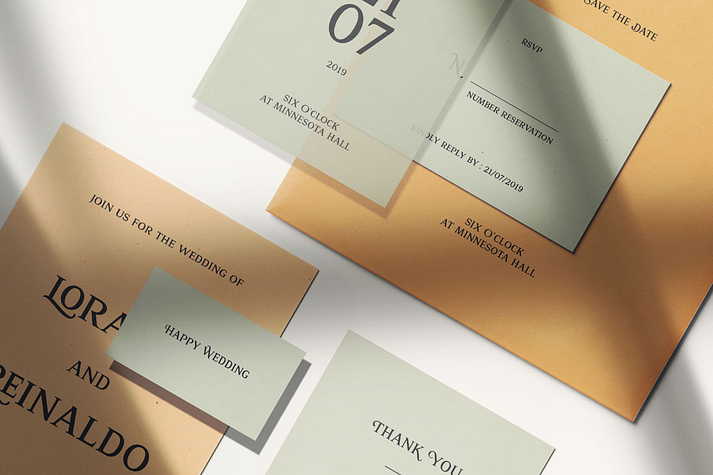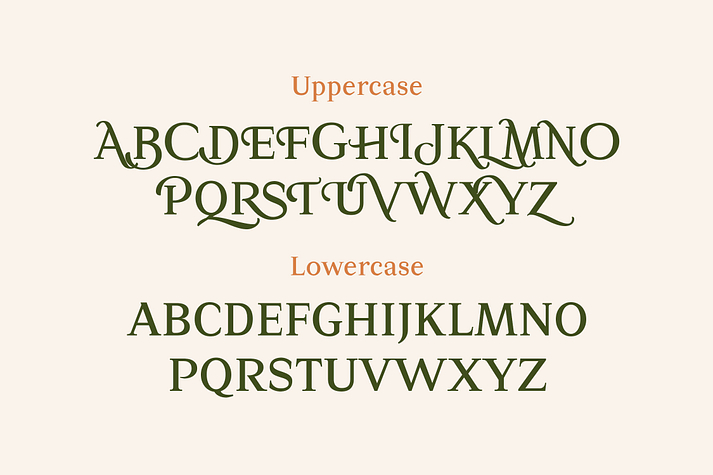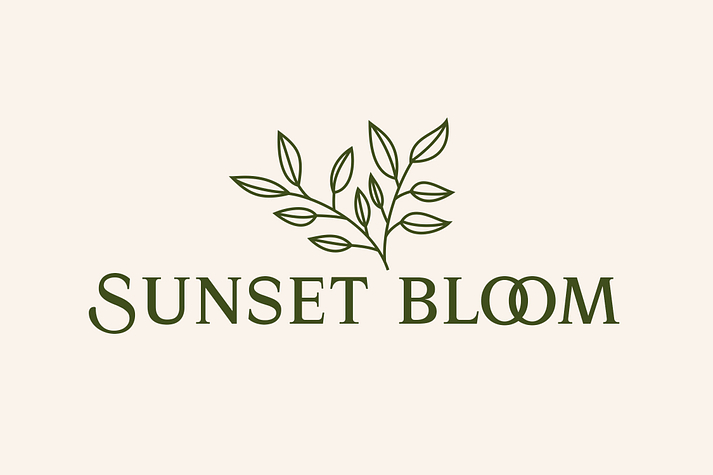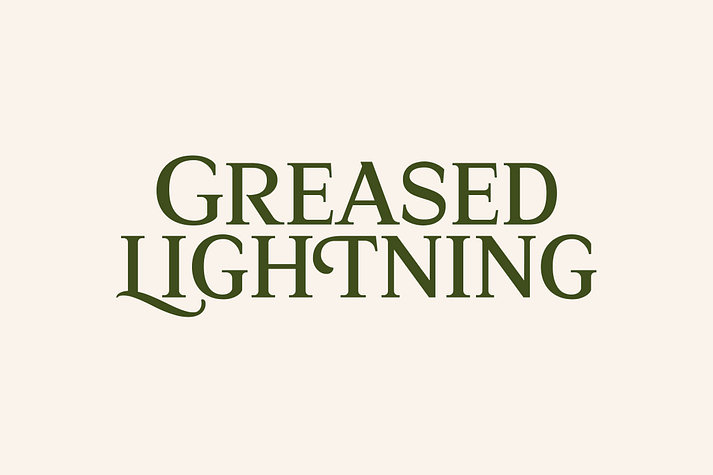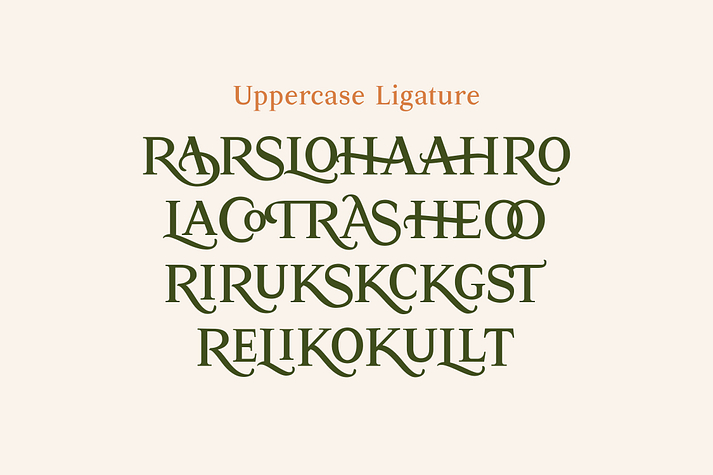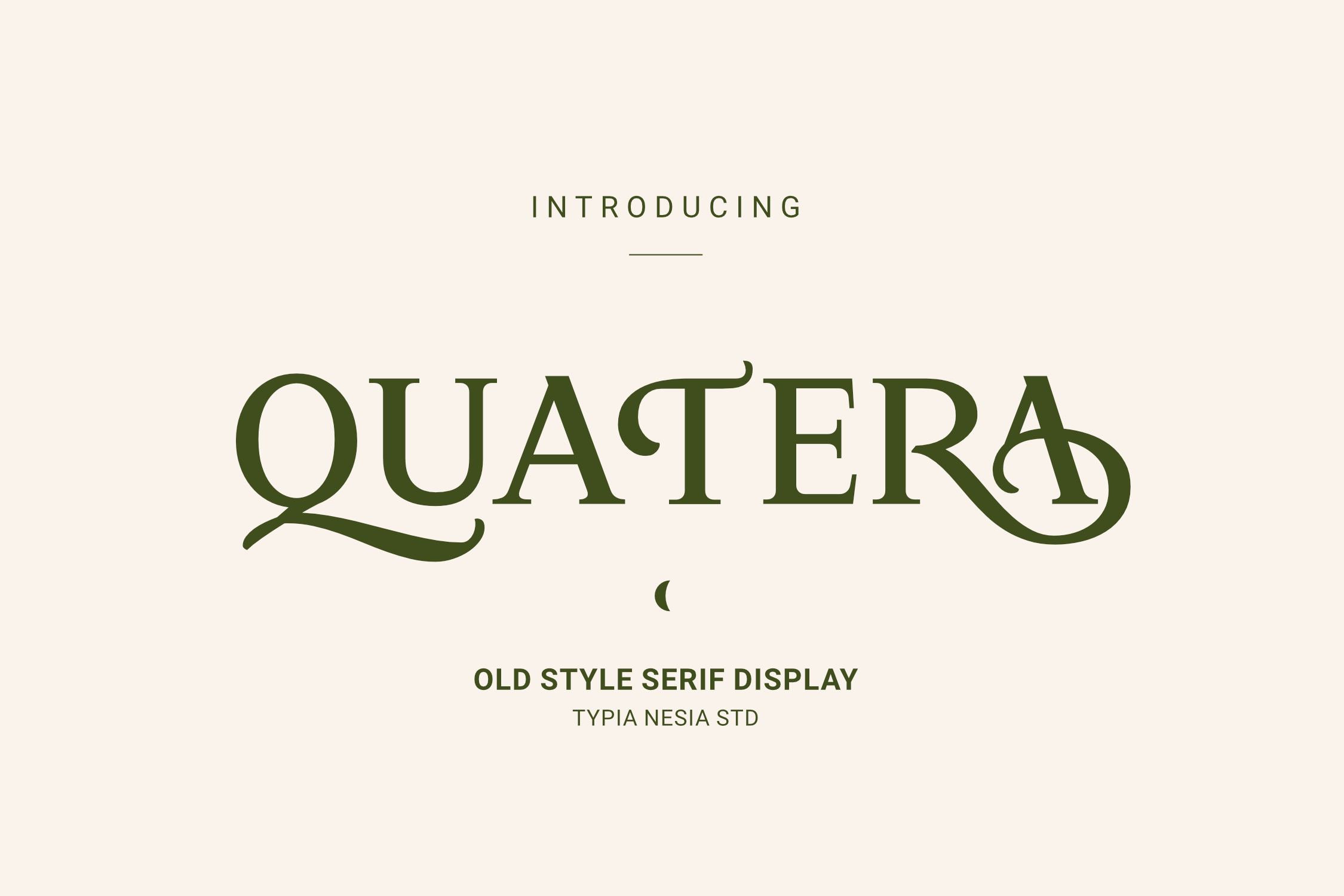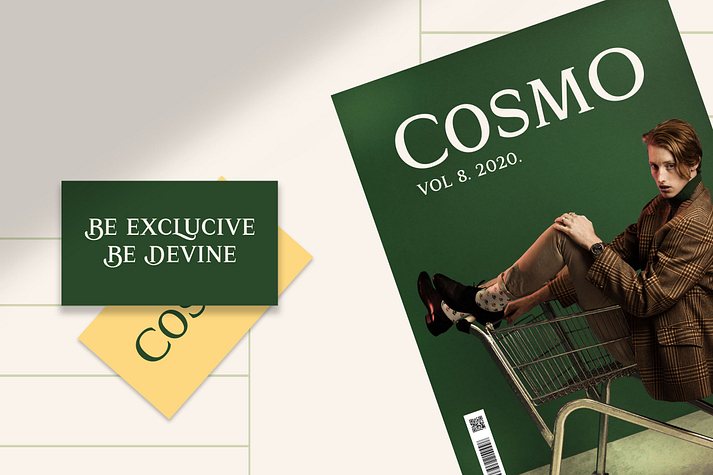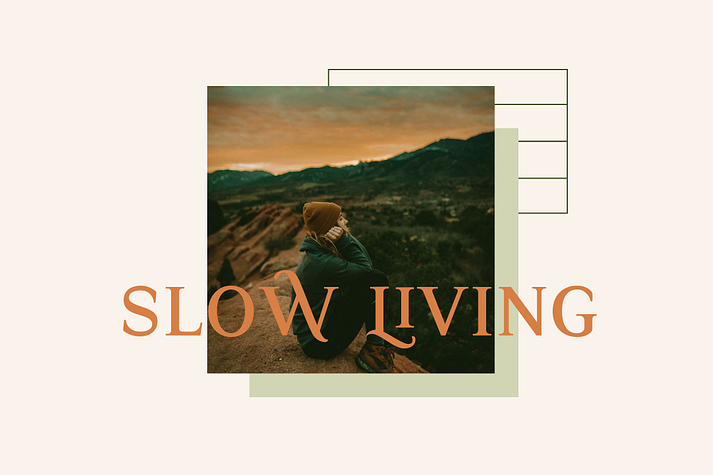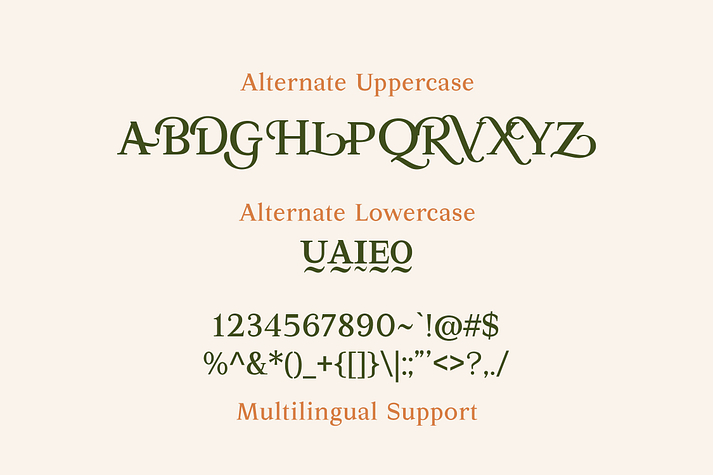
Quatera Display
Quatera Display is a font family published by Typia Nesia.
Quatera Display Serif - Elegant Luxury serif font.
Quatera Display Serif font is perfect for your up coming projects. Such as luxury logo and branding, classy editorial design, magazine, fashion promotional, boutique branding, stationery design, blog design, modern advertising design, card invitation, art quote, home decor, book/cover title, special events and any more.
FEATURES :
• Basic A-Z
• Title A-Z
• Numerals
• Punctuations
• Alternates
• Ligatures
• Multilingual support
Foundry Typia Nesia